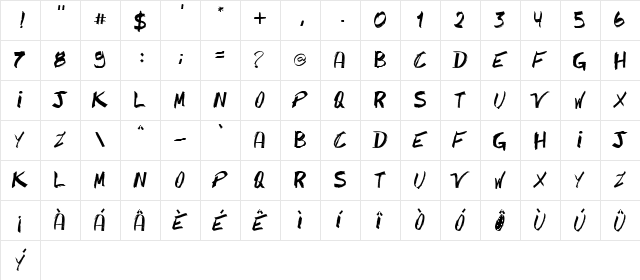
Caipirinha Caipirinha
Style: Caipirinha
Foundry: Marcio R. M. Martinson & Roberto Machado Jr.
Design Context for Caipirinha
Caipirinha is a composed and adaptable typeface that performs quietly and consistently across a wide range of design contexts.